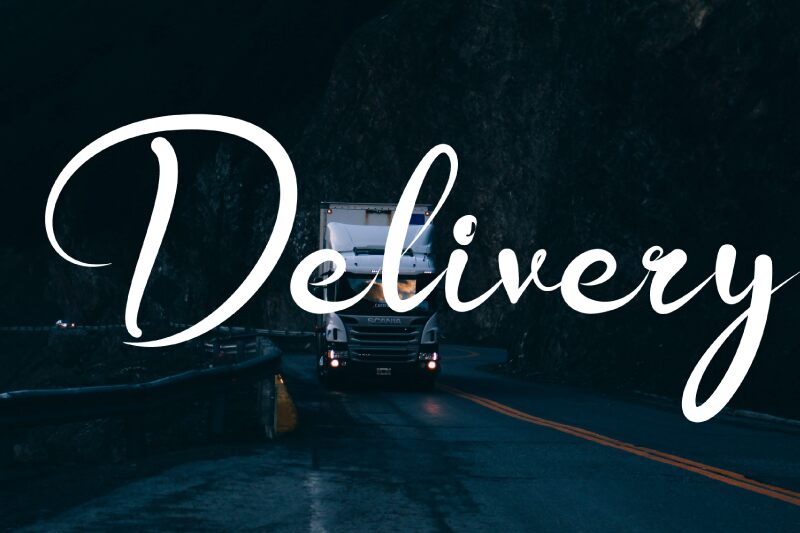
Delivery Bold Italic
Delivery Bold Italic font by Design Vector10 is a brush typeface that combines elegance with a modern script style. With its graceful curves and flowing design, it brings a sophisticated aesthetic, perfect for contemporary projects seeking a touch of class.
This free calligraphy font suits invitation cards, logos, branding, advertising materials, product packaging, website headers, social media graphics, book covers, posters, and fashion magazine spreads.